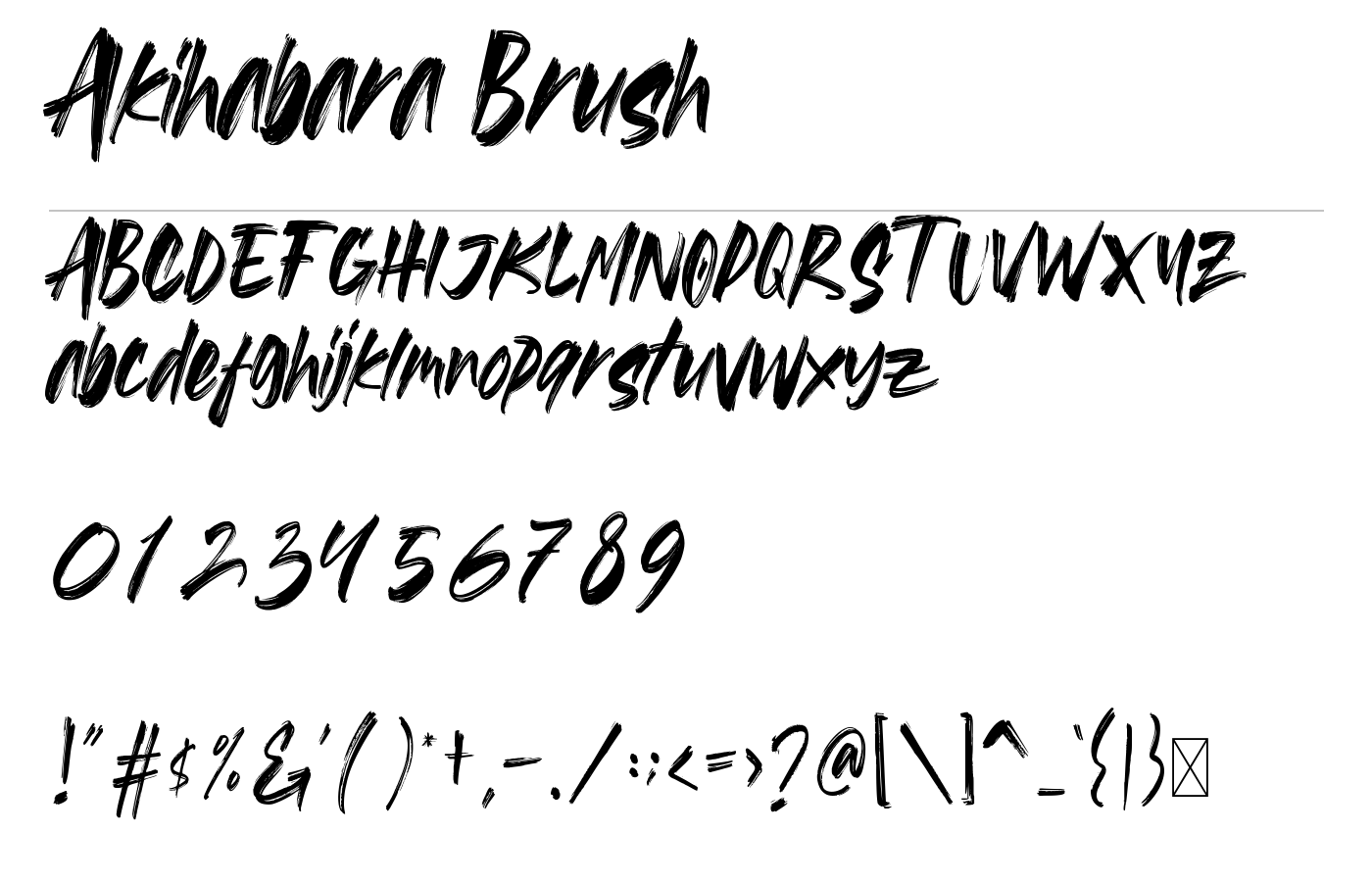
Akihabara Brush is a bold, brush-script font that brings energetic, hand-painted charm to any design. Its rough, textured strokes and casual, slightly condensed letterforms give it a lively, creative feel perfect for dynamic headlines, posters, and branding that aim to convey personality and spontaneity. This font shines in projects that want to capture an artistic, urban vibe with a touch of playful authenticity.
Akihabara Font
About Akihabara Font